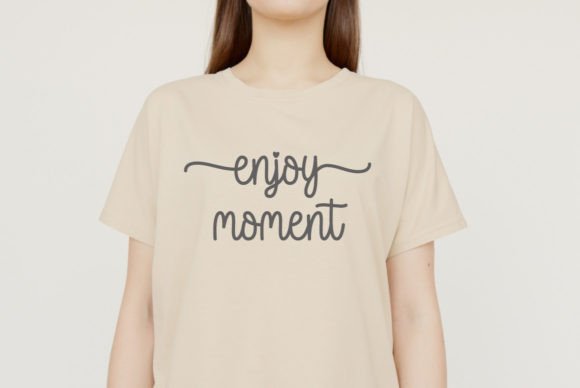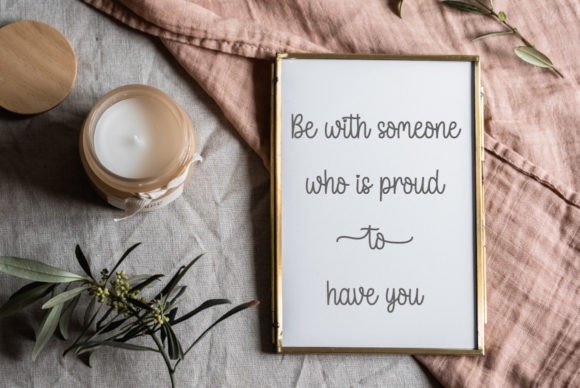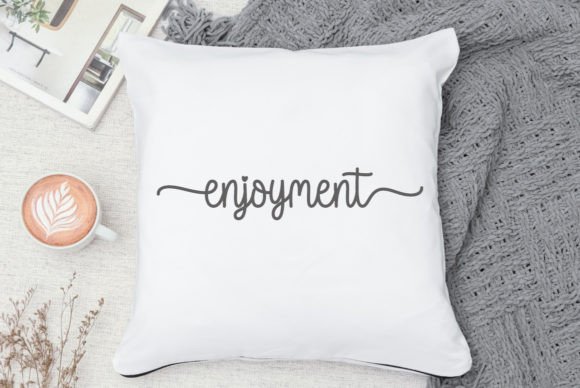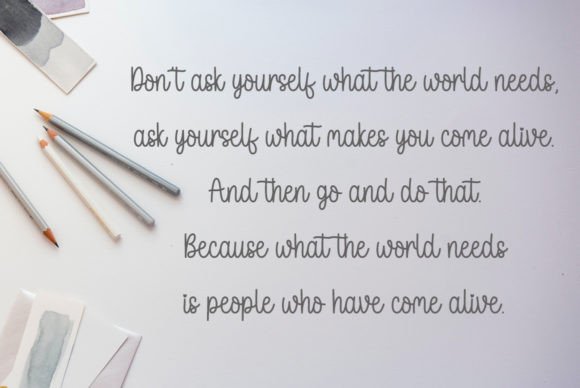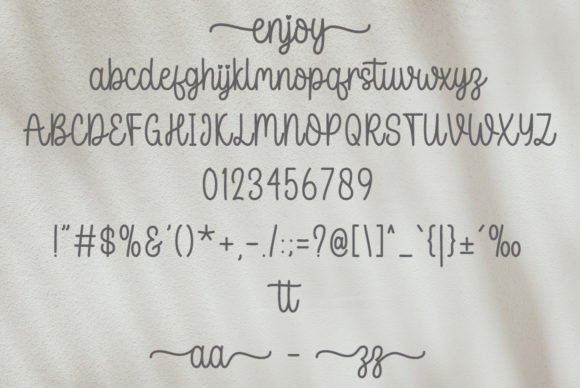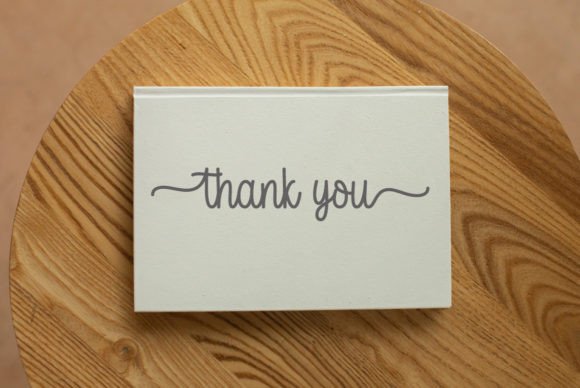
Introducing Enjoy Font: Elevate Your Designs with a Stylish Monoline Script
In the world of digital design, fonts play a pivotal role in conveying messages, evoking emotions, and adding aesthetic appeal to creations. Among the myriad of fonts available, the Enjoy Font stands out as a stylish monoline script font that can significantly enhance your design projects. This article will delve into the features and benefits of the Enjoy Font, exploring why it should be a valuable addition to your font library.
What is Enjoy Font?
Enjoy Font is a meticulously crafted monoline script font, distinguished by its neat and highly detailed design. This font is versatile and can be applied to a wide range of topics and projects, from creative artworks and branding to digital marketing materials and personal crafts. Its elegant and fluid lines make it perfect for designs that require a touch of sophistication and style.
Key Features of Enjoy Font
- Stylish Monoline Design: The Enjoy Font boasts a sleek and modern monoline script style, characterized by its single-line strokes that connect to form elegant letters. This design lends a contemporary and refined look to any project.
- Highly Detailed and Neat: The font’s attention to detail ensures that it is both visually appealing and legible, making it suitable for a variety of applications, from large-scale posters to intricate craft projects.
- PUA Encoded: One of the standout features of the Enjoy Font is its PUA (Private Use Area) encoding. This means that the font includes a range of glyphs and swashes that can be easily accessed and used to add more creativity and flair to your designs.
- Versatility: Whether you’re working on a branding project, creating digital content, or crafting handmade items, the Enjoy Font can adapt to various design needs, providing a consistent and stylish look.
The Enjoy Font offers numerous benefits for designers and crafters looking to elevate their projects:
- Enhanced Aesthetic Appeal: With its stylish monoline design, the Enjoy Font can add a touch of elegance and modernity to your creations, setting them apart from more generic designs.
- Time Efficiency: Being PUA encoded, the font allows for easy access to various glyphs and swashes, saving you time in the design process and enabling you to focus on the creative aspects.
- Wide Applicability: From digital designs to handmade crafts, the Enjoy Font’s versatility means you can use it across different mediums and projects, making it a valuable and practical addition to your font collection.
- Increased Engagement: The unique and stylish appearance of the Enjoy Font can help grab the viewer’s attention, increasing engagement with your content or product.
- Experiment with Styles: Take advantage of the font’s PUA encoding to experiment with different glyphs and swashes. This can help you find the perfect style to match your project’s theme and tone.
The Enjoy Font is a versatile and stylish monoline script font that can significantly enhance your design projects. Its neat and detailed design, combined with PUA encoding for easy access to glyphs and swashes, makes it a valuable asset for designers and crafters alike. Whether you’re looking to add a touch of elegance to your digital content or create visually appealing handmade crafts, the Enjoy Font is an excellent choice. By incorporating this font into your design library, you’ll be well-equipped to produce high-quality, engaging projects that stand out.